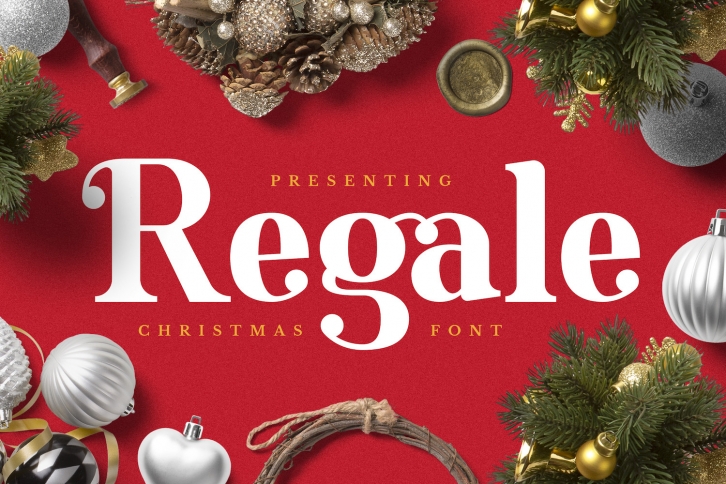
Regale is a cool and adaptable display font. This font is suitable for designs such as t-shirts, sportswear, logos, advertisements, clothing, and more.